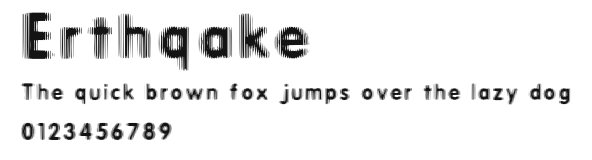
Erthqake Preview
About Erthqake.ttf
Erthqake.ttf is a modern, elegant sans-serif font designed for ultimate readability and visual harmony. Perfect for branding, headlines, web design, and print materials.